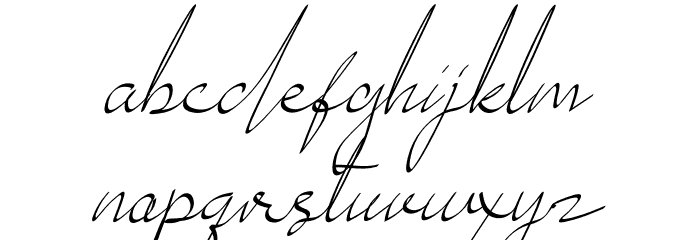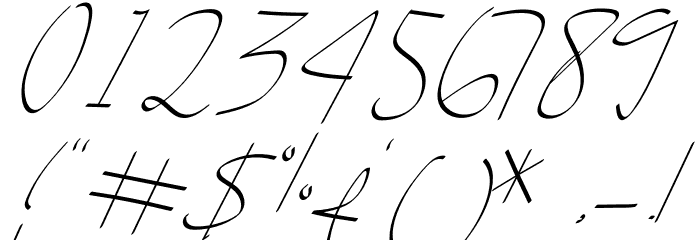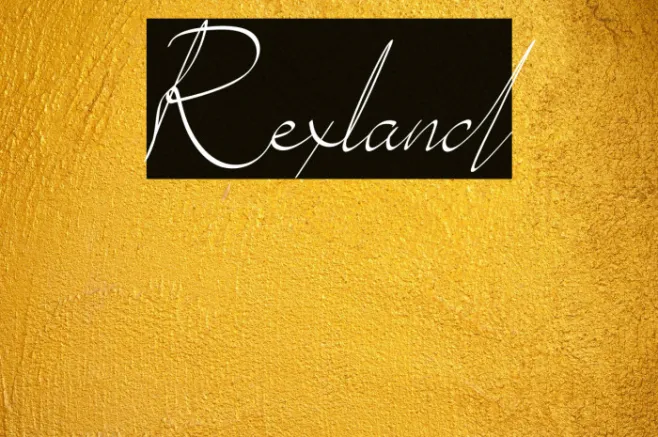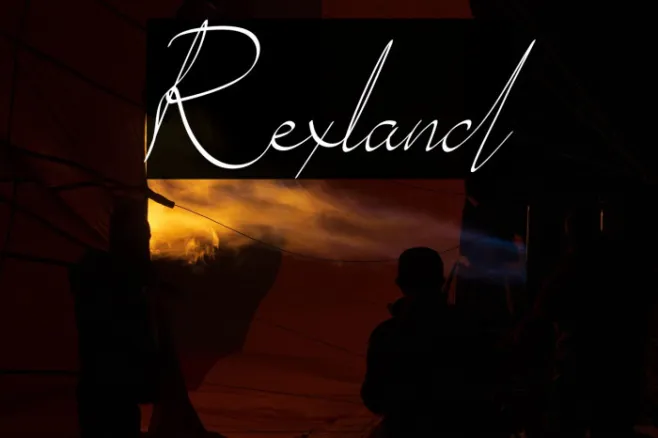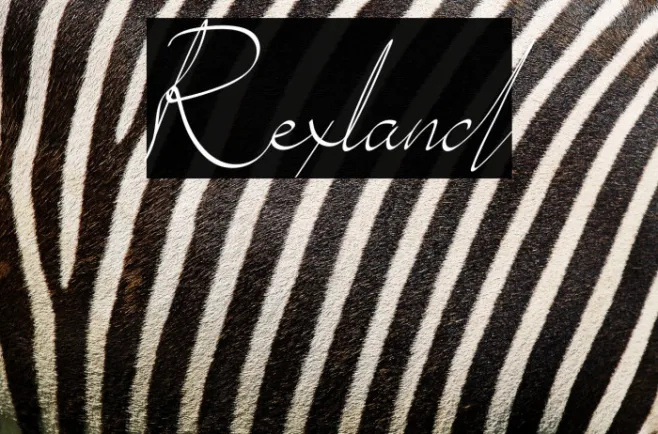
Rexland Font
This elegant script font features a flowing, cursive style that exudes sophistication and grace. The uppercase letters are tall and slender, with sweeping curves and delicate loops that create a sense of movement and fluidity. The lowercase letters maintain a consistent slant, enhancing the font's cohesive appearance. Numbers and special characters are designed with the same attention to detail, ensuring a harmonious look throughout. The font's thin strokes and high contrast between thick and thin lines add to its refined aesthetic, making it ideal for formal invitations, elegant branding, and artistic projects.
A graceful script font with flowing, cursive letters and high contrast strokes.
- Proposed Projects: Perfect for wedding invitations, elegant branding, artistic projects, and formal stationery.
- Overall Style: Elegant
- Use Case: Headlines, Invitations, Artistic projects